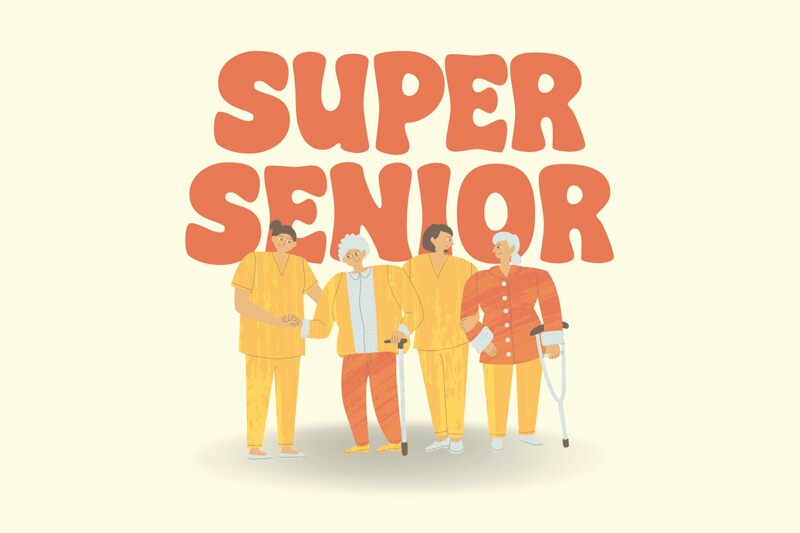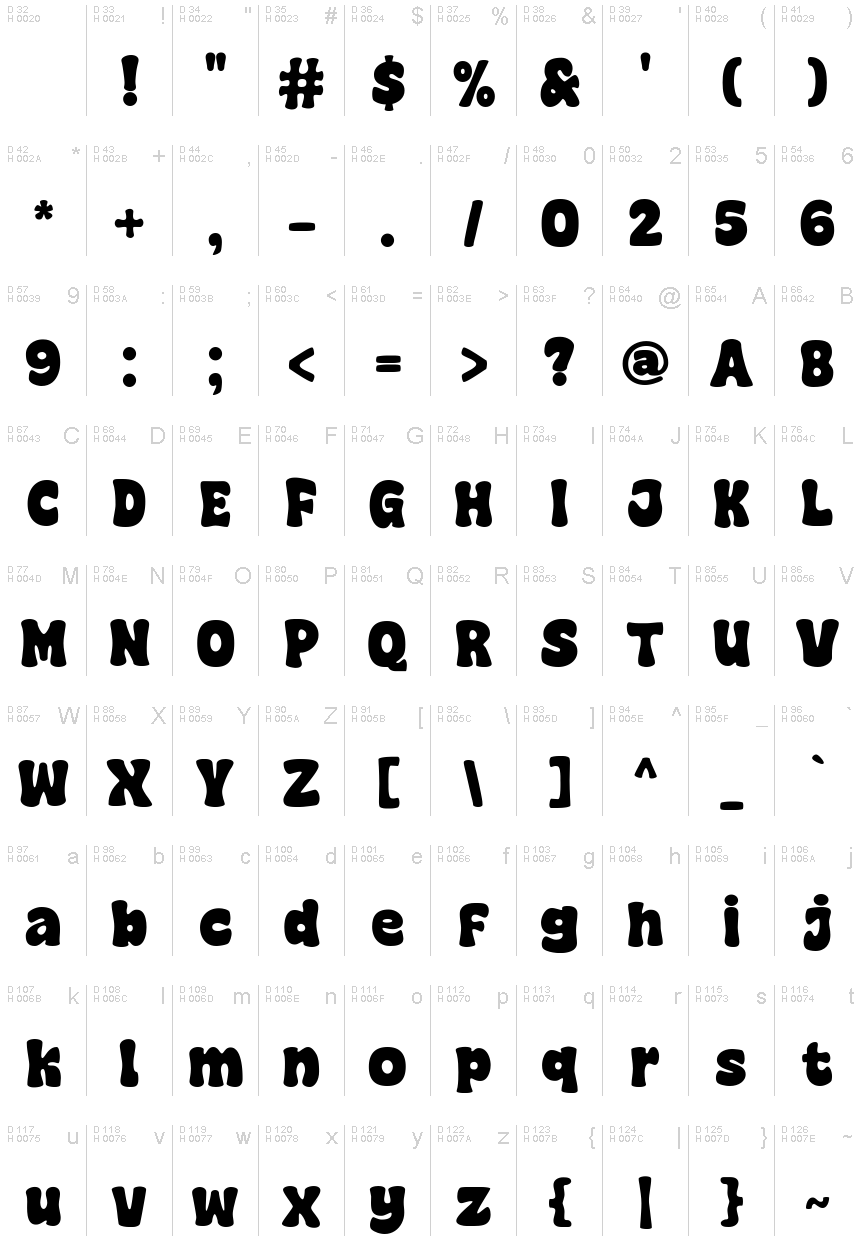
Super Senior
Super Senior bursts onto the scene with a personality as bold and round as its characters. This font is designed to bring a touch of fun and whimsy to any project, perfectly suited for headlines, logos, and display text that demands attention.
The oversized, cartoon-inspired letters exude a sense of playfulness, instantly commanding the viewer's focus. The font's weight and width create a strong, impactful visual presence, making it an excellent choice for eye-catching designs, from product packaging to event posters.
Whether you're crafting a vibrant children's book cover or a playful social media campaign, Super Senior's unique aesthetic will infuse your work with a lively, engaging spirit. Its versatility allows it to seamlessly transition between lighthearted, quirky applications and more modern, striking design compositions.